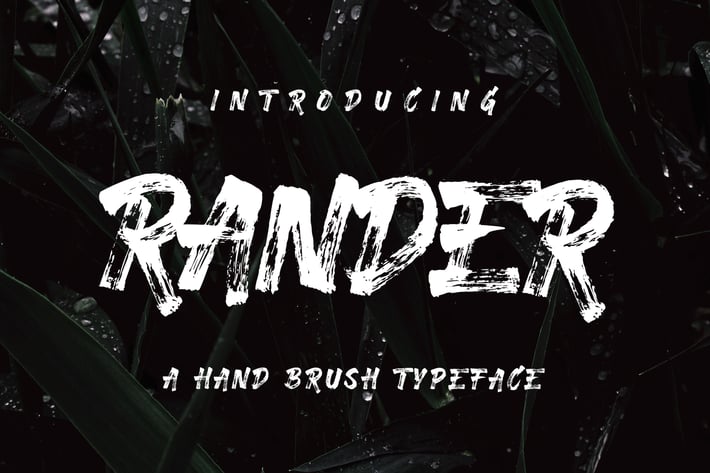
Rander Font
Rander is a freehand rough brush font with the classy style and dry brush techique. It is suitable for any design needs. Thank you for grab this font in your collections! hope you enjoy with Rander.